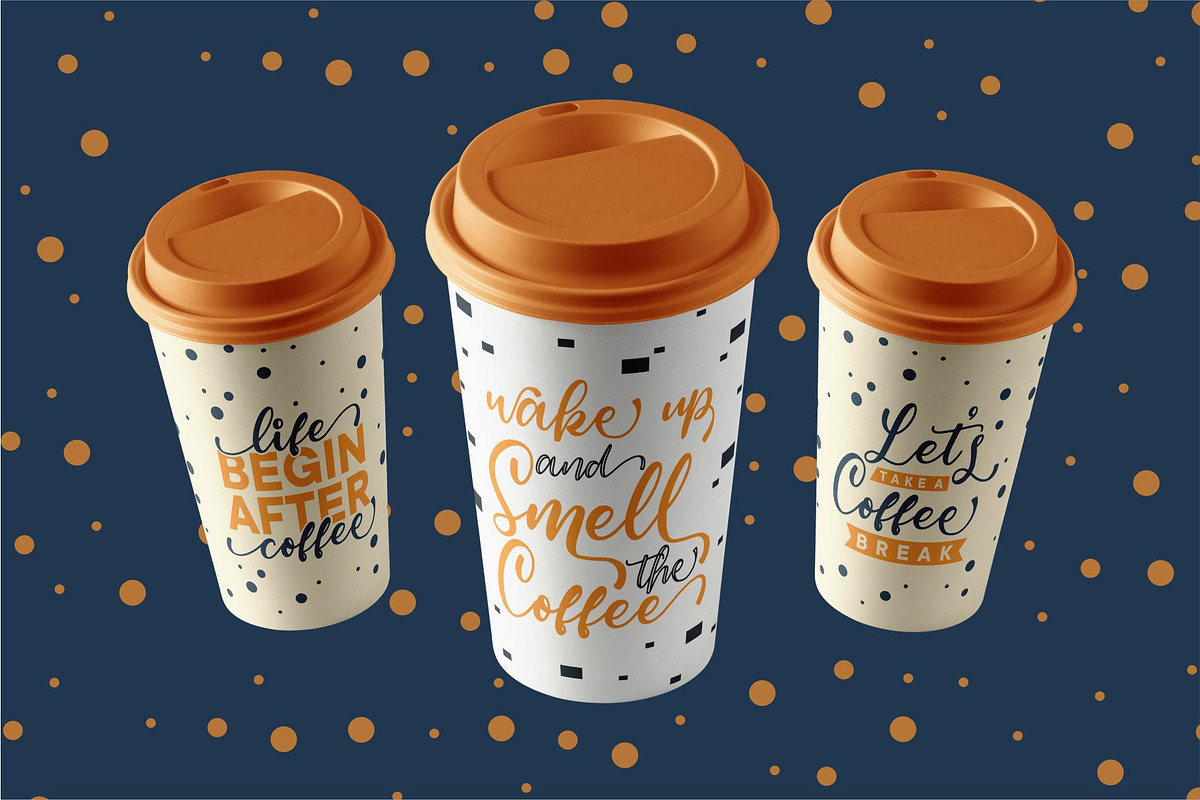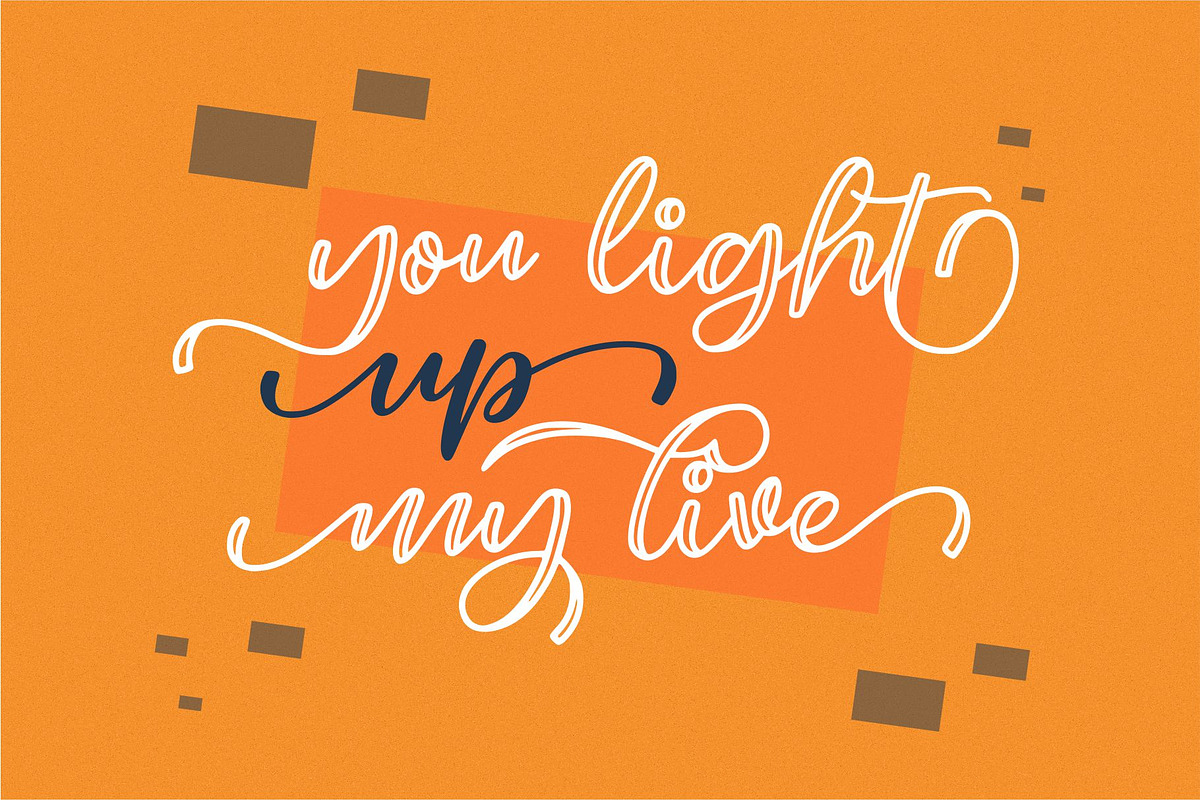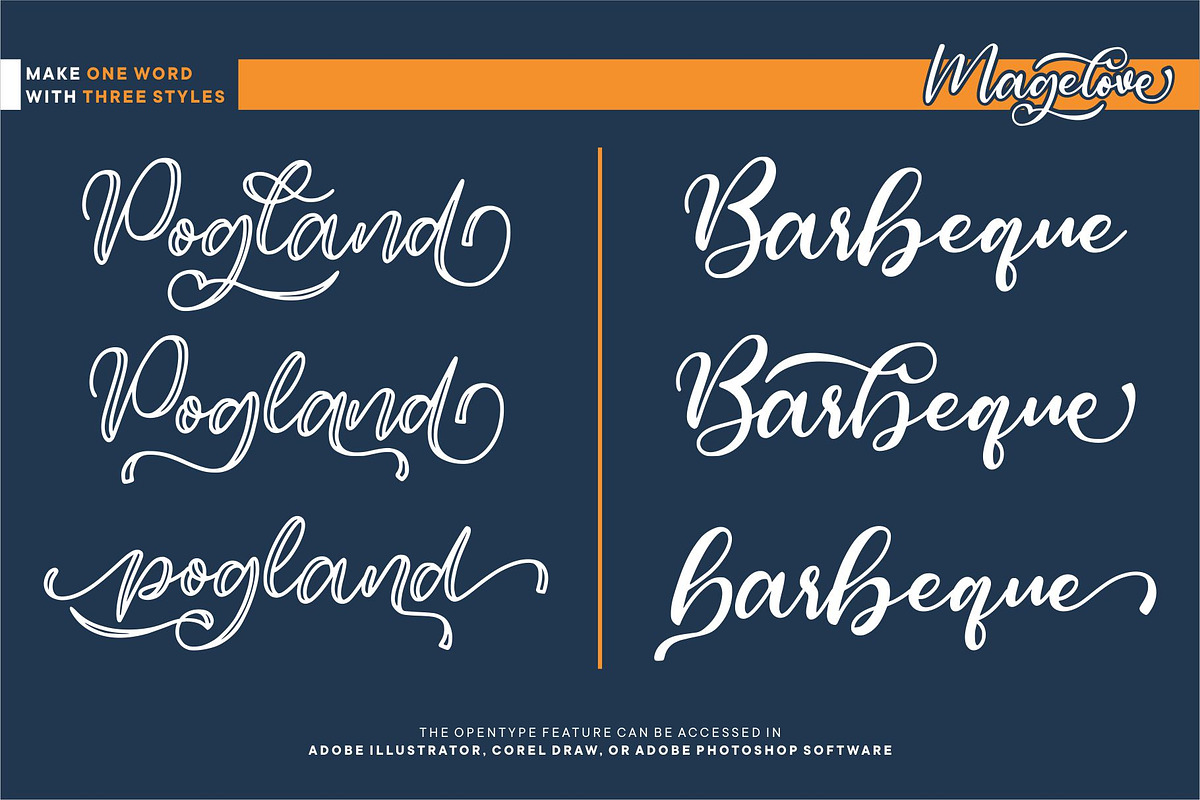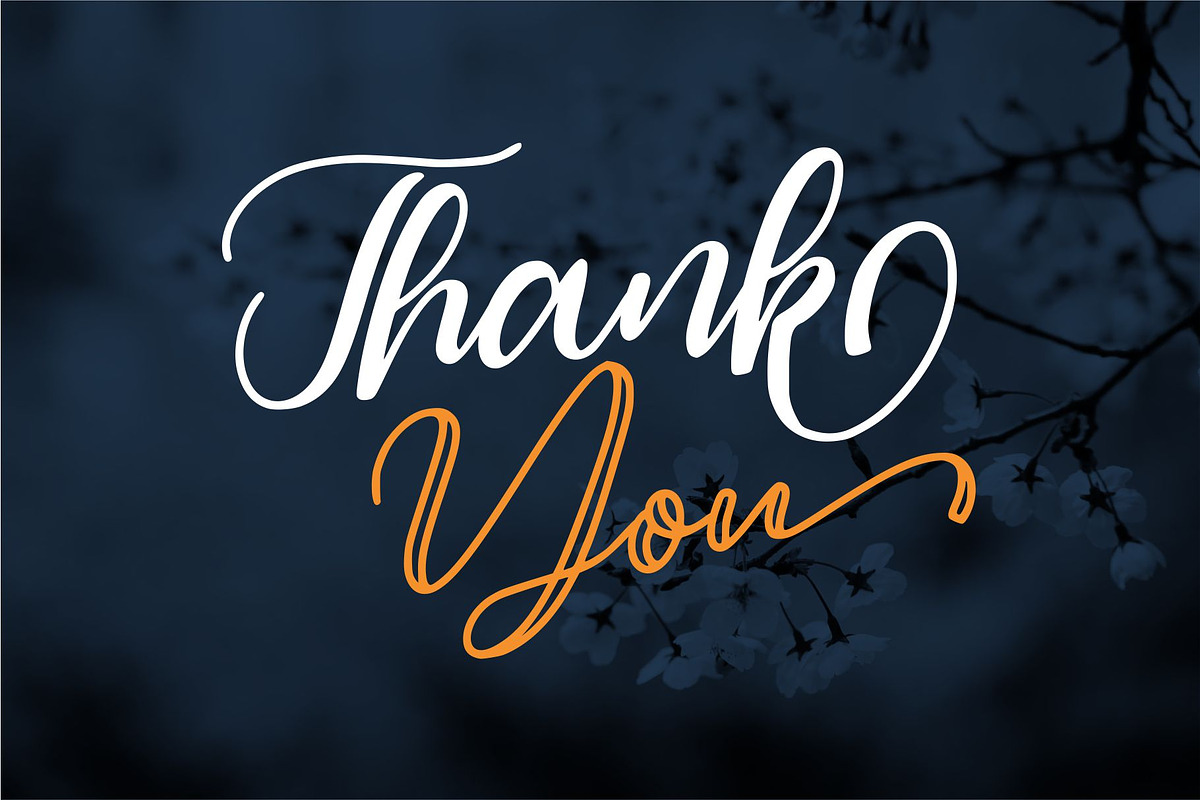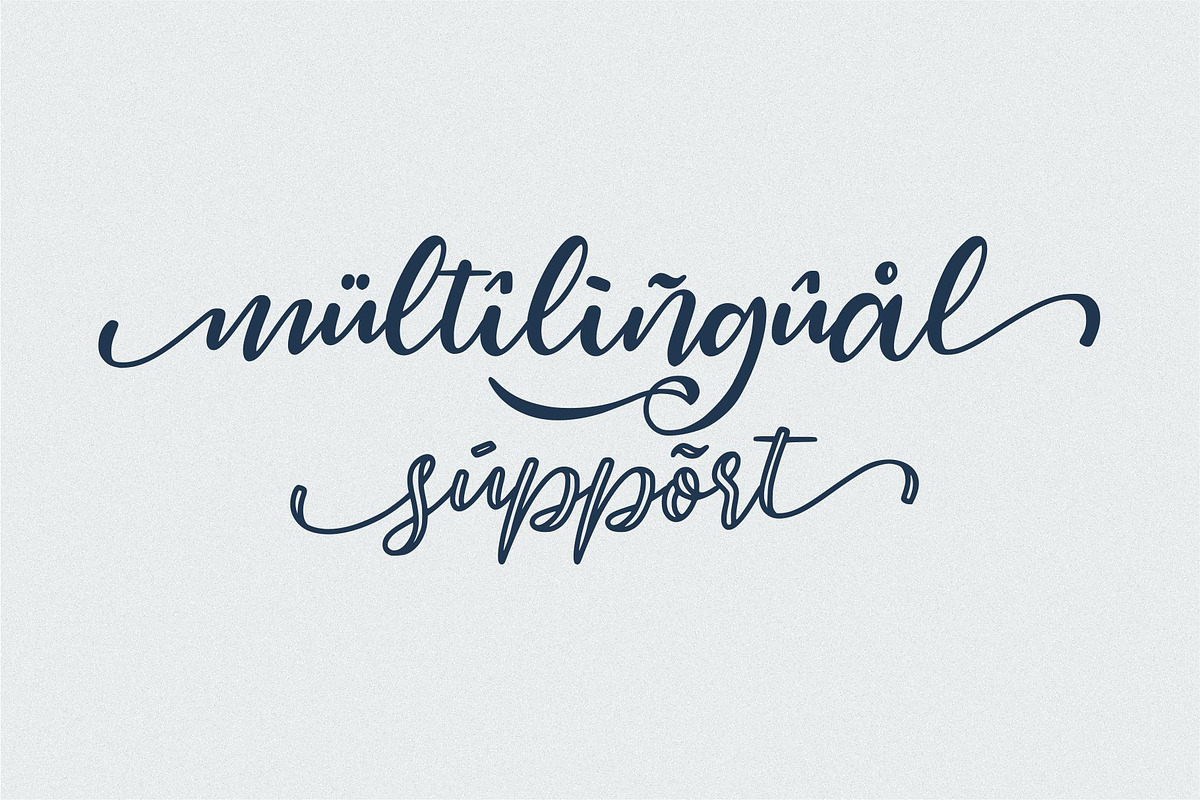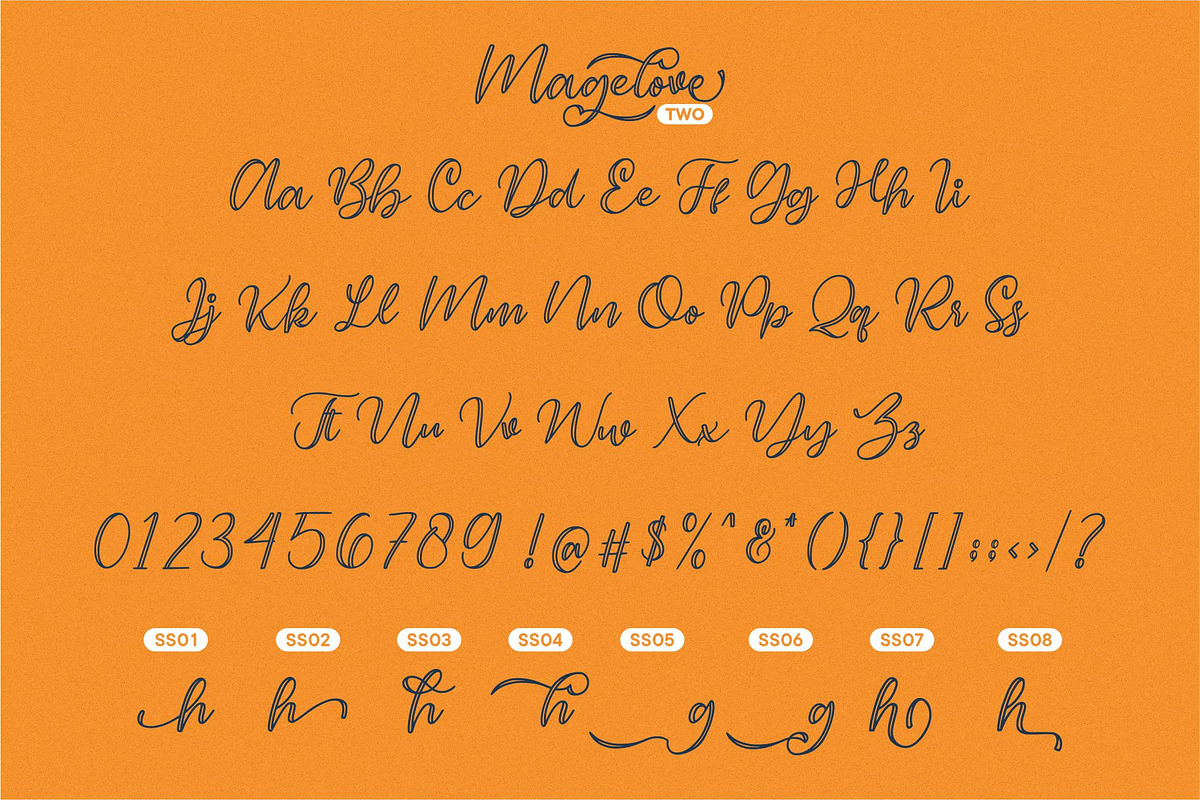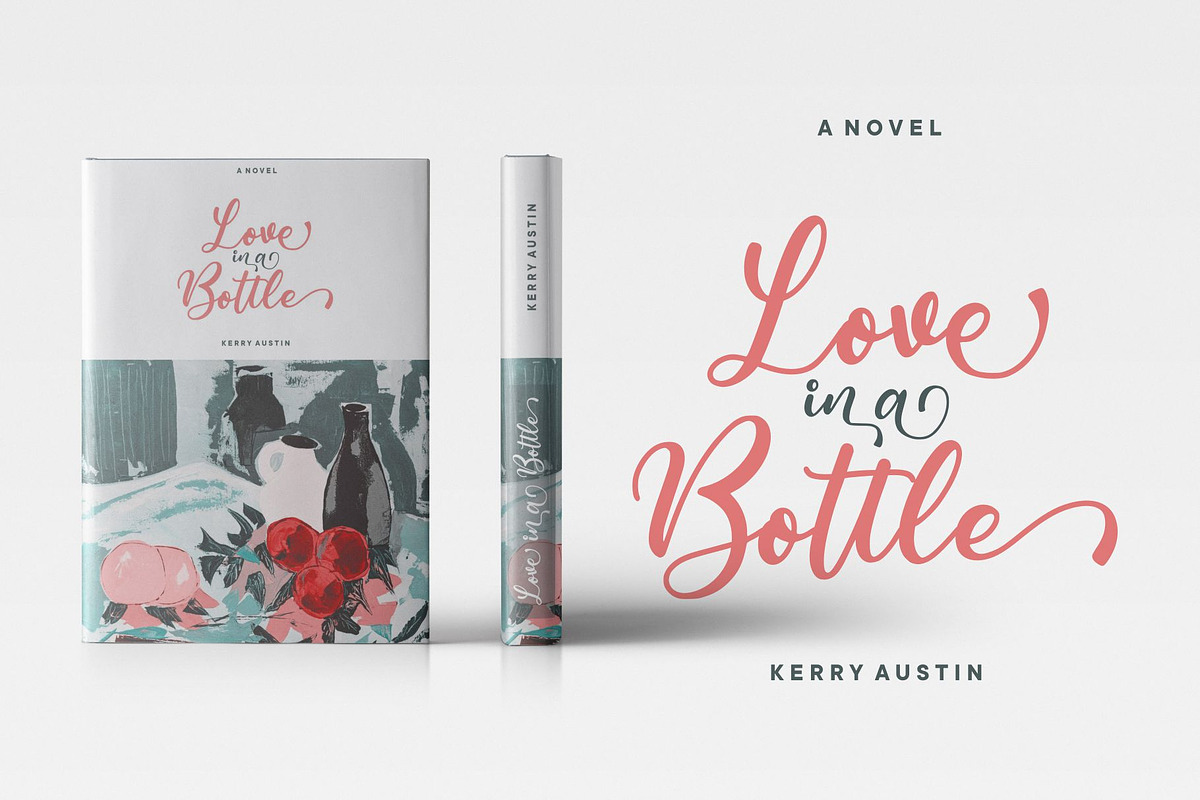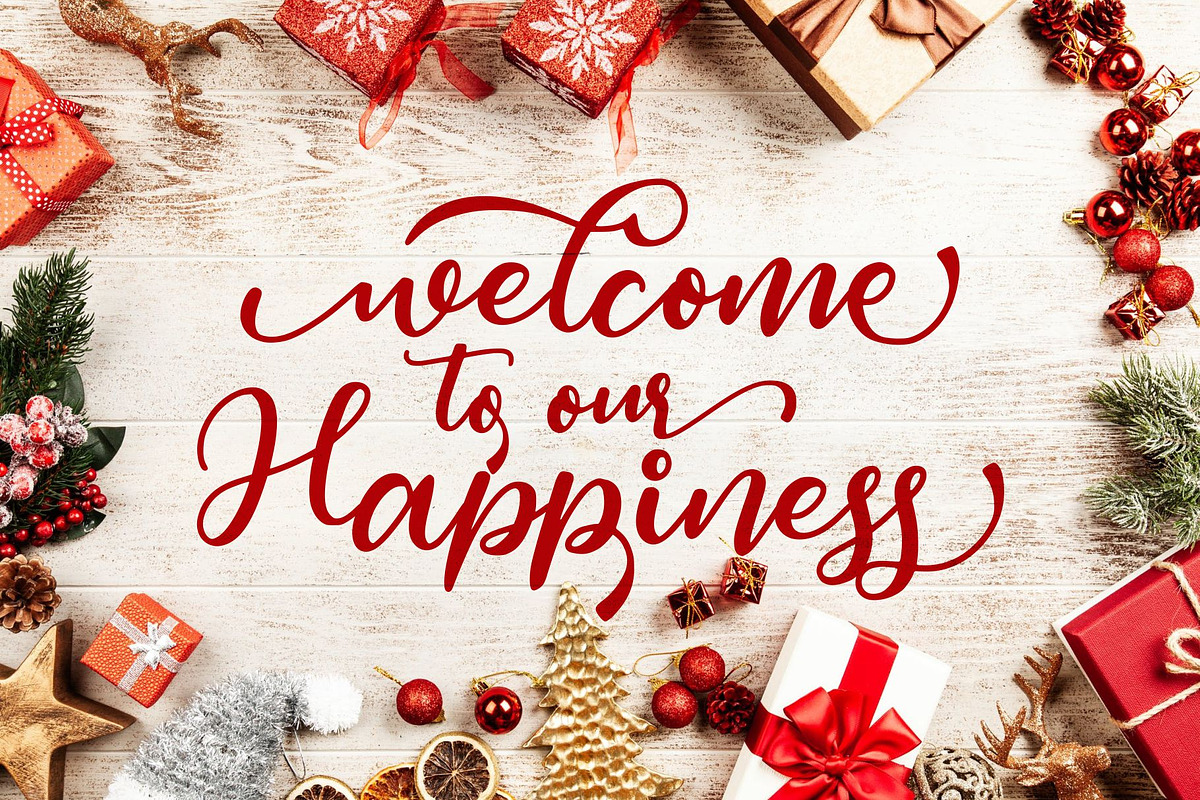
Magelove - Two Style Font
Introducing: Magelove "Striped and Contains Fonts"
Magelove a handlettering font is a natural & beautyful handwritten font to get natural and natural writing. I'ts Perfect for logo, invitation, stationery, wedding designs, social media posts, advertisements, product packaging, product designs, label, photography, watermark, special events or anything
- Stylistic Sets (SS01-SS08) & Ligature